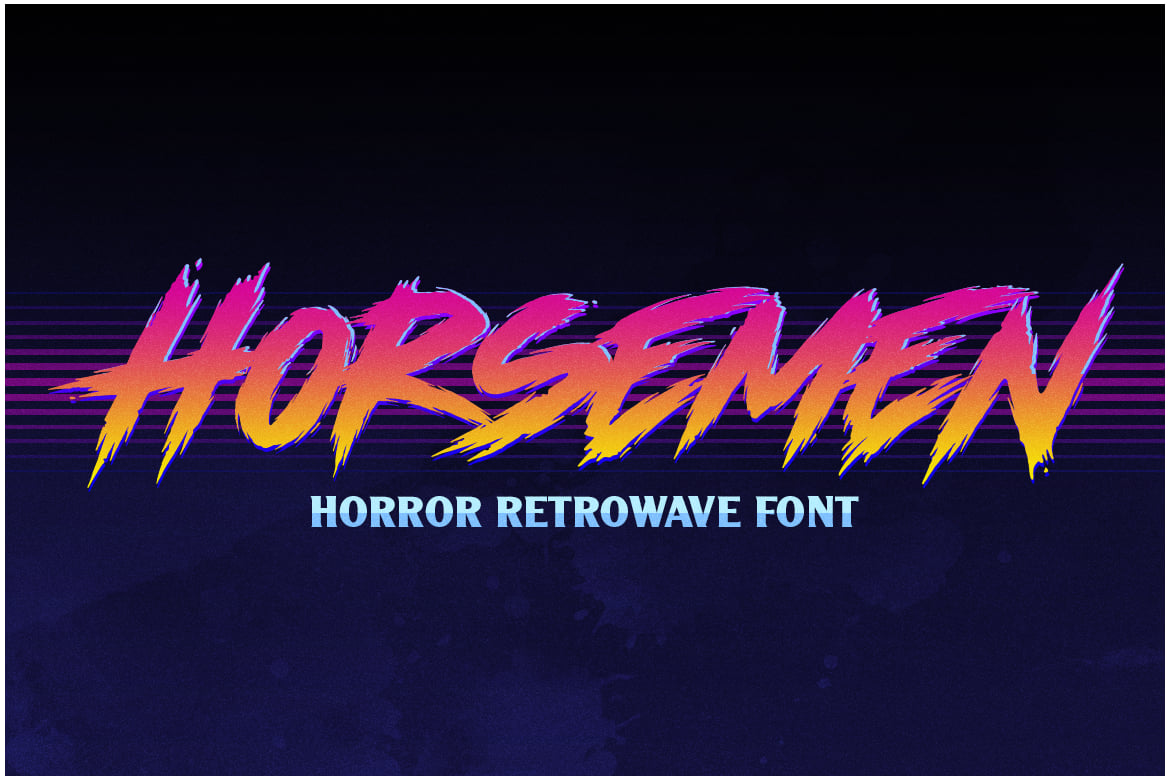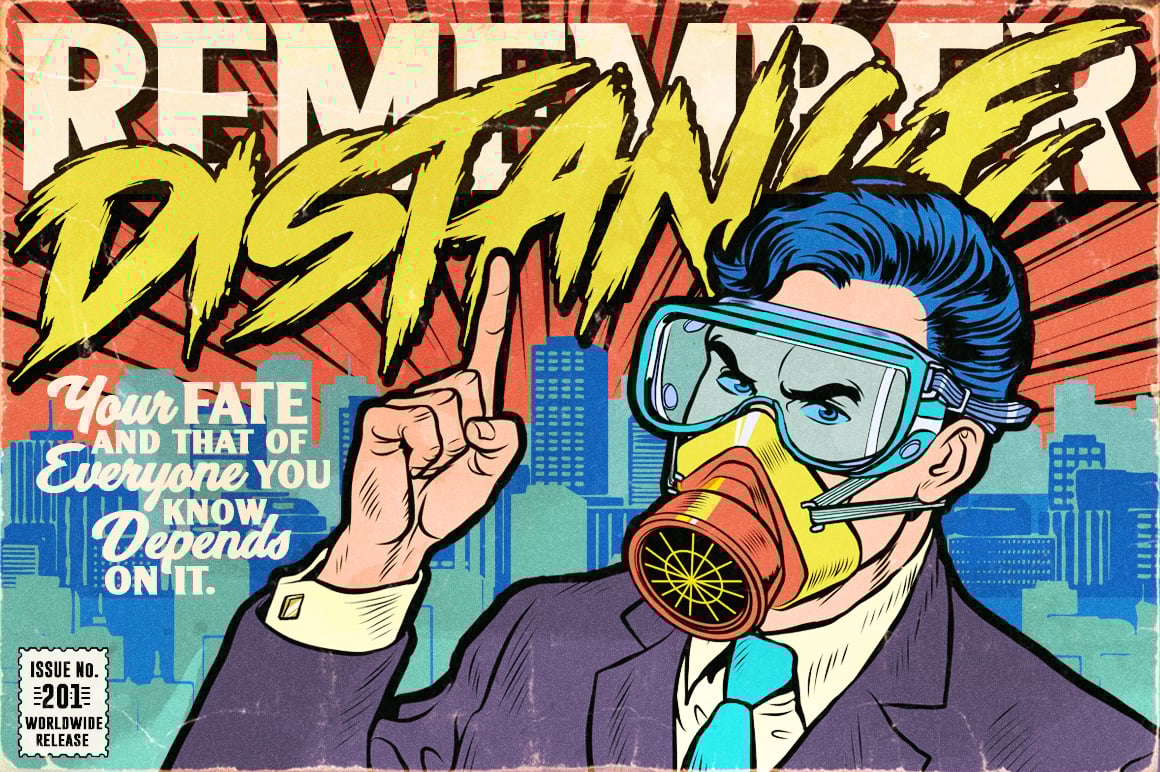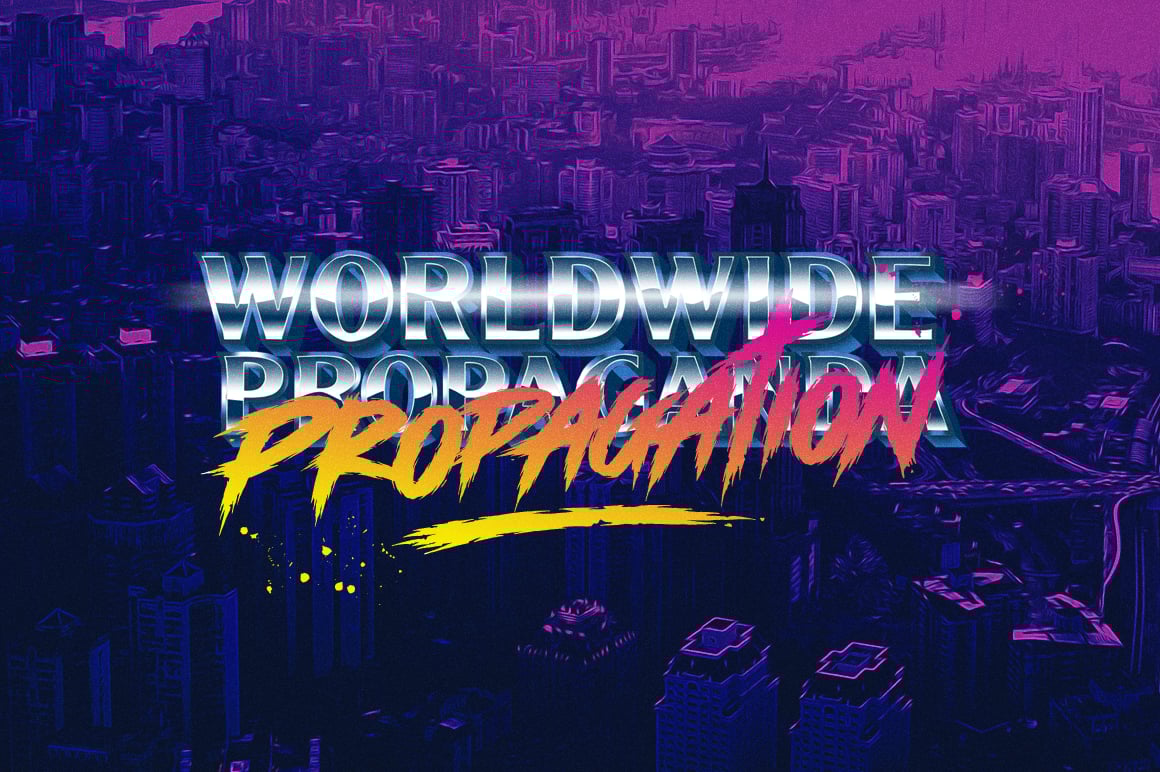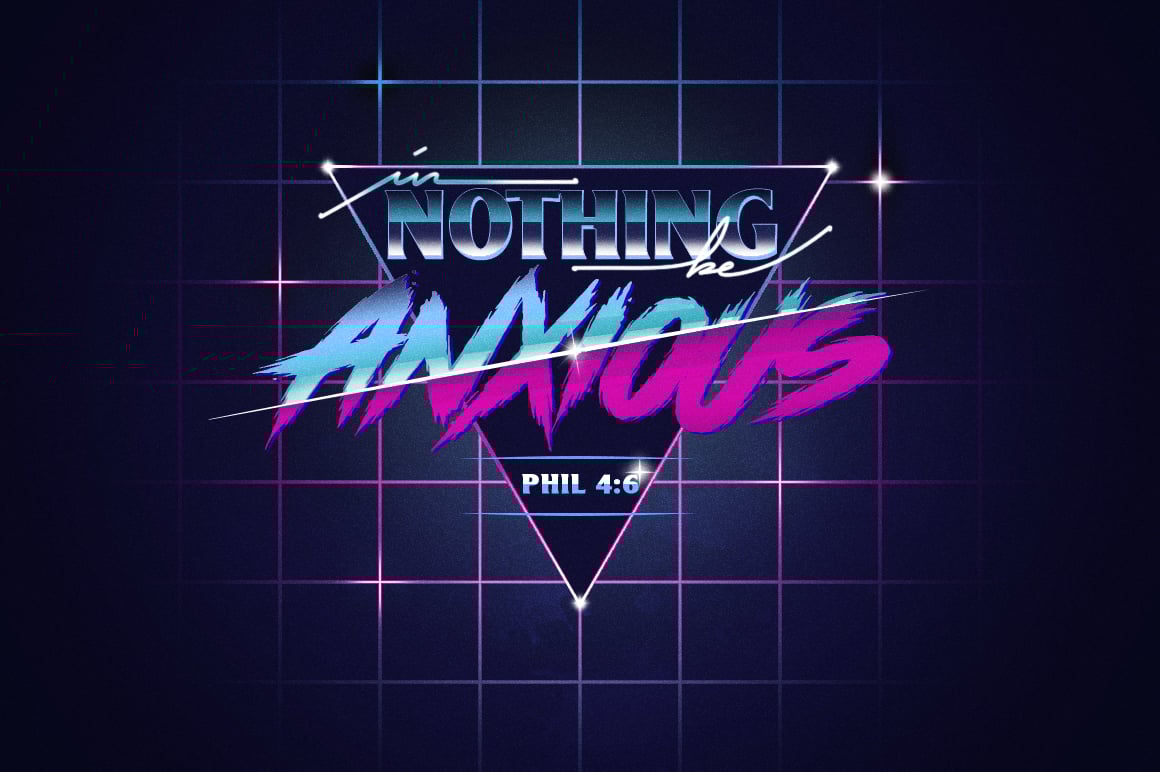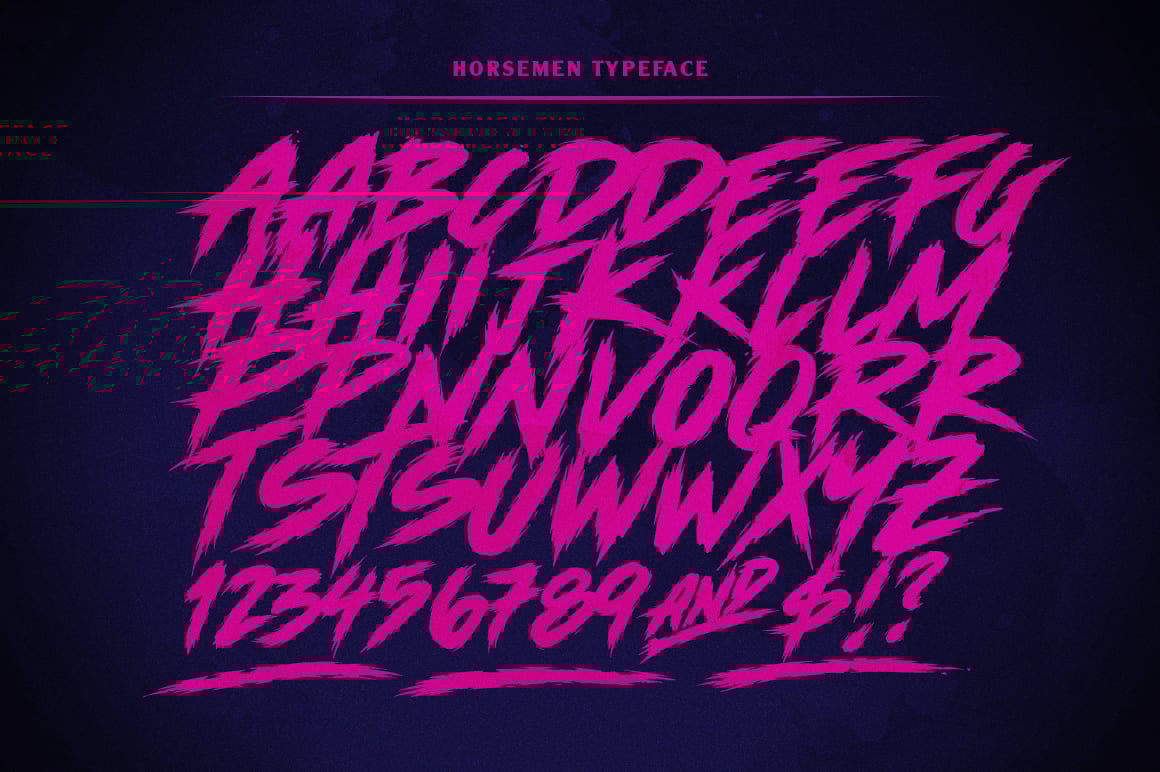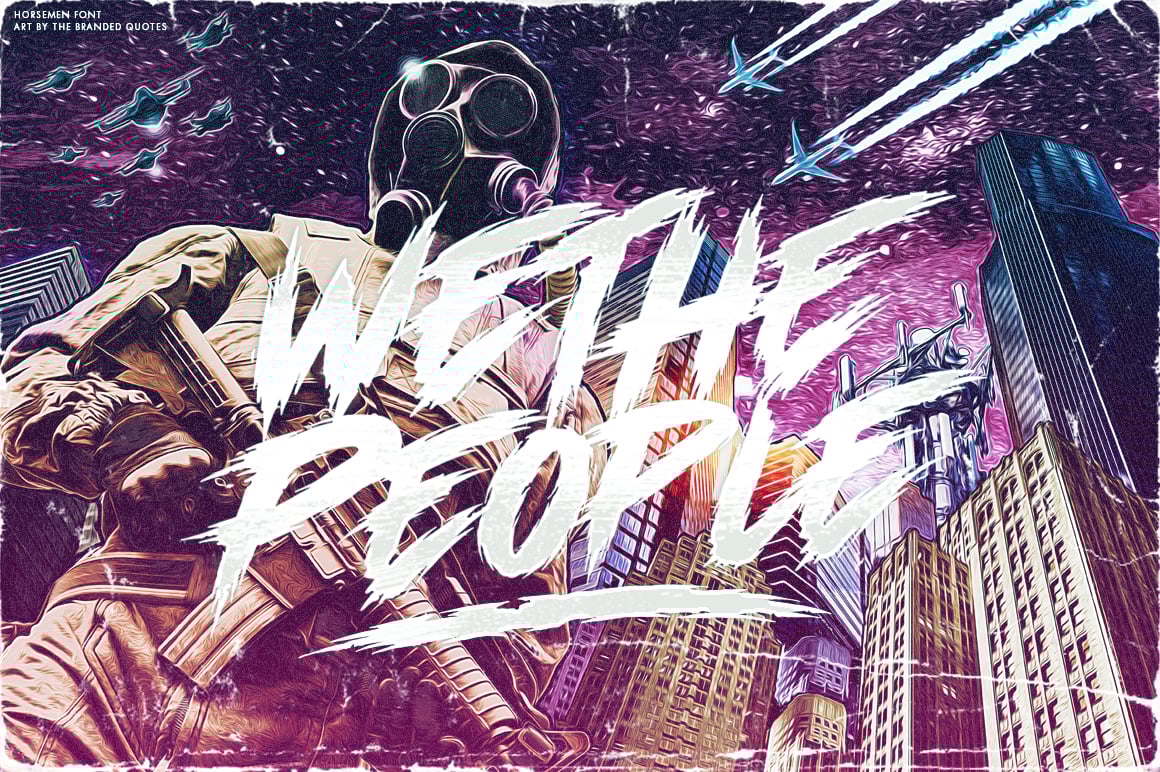
Horsemen – Horror Retrowave Font
Horsemen is a dark-themed font ready to be splattered on your design projects. Inspired by retro, horror and 80’s style artworks and music. Horsemen works best for headlines, shirt-designs, comics, posters, album covers, games and packaging. Now keep your designs sharp and classic!